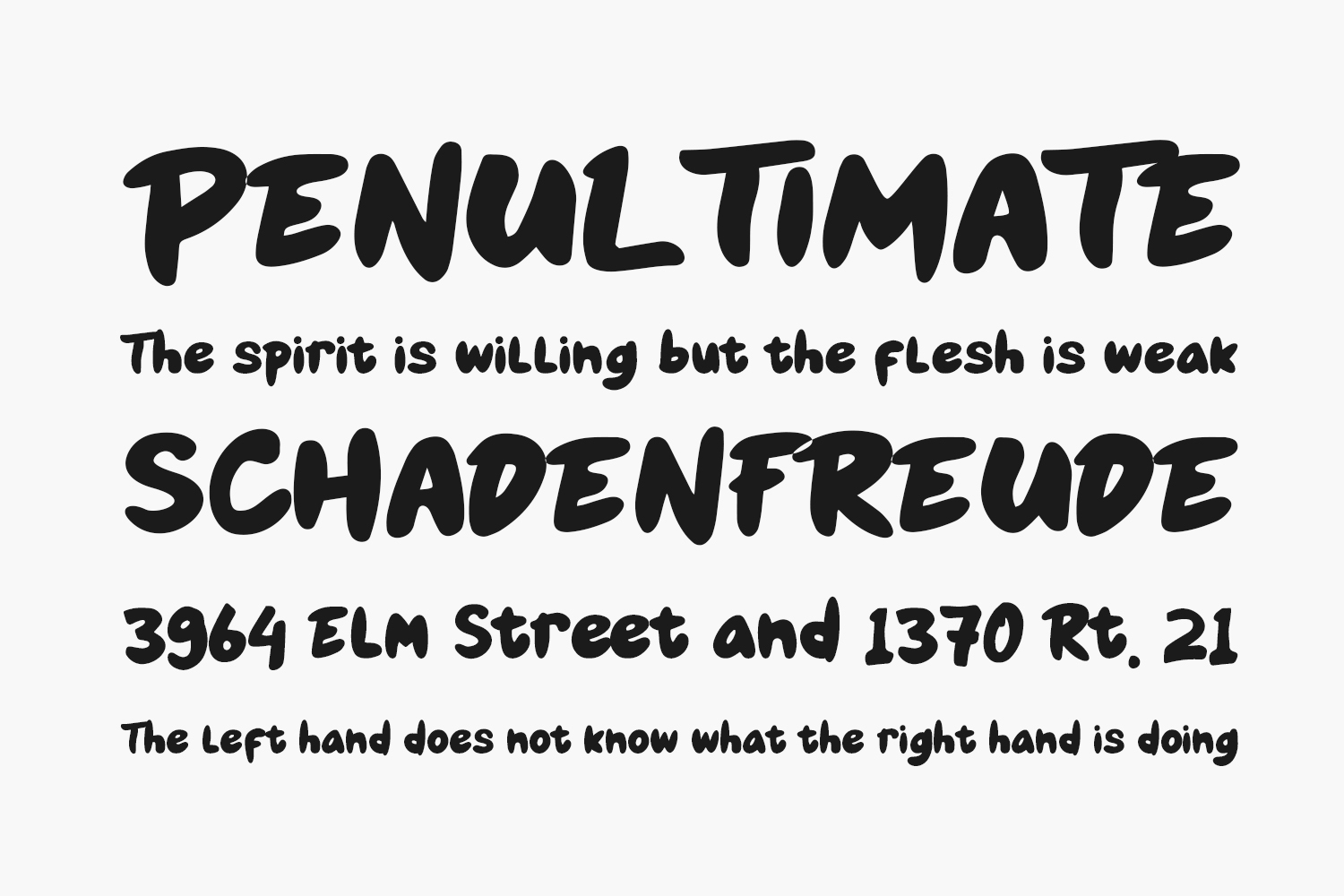
Honey Bear Free Font is a lively and playful cartoon typeface, overflowing with personality and whimsy. Its bold, fanciful letters invite you to let your imagination run wild, as each character dances and bounces off the page. The font exudes a carefree spirit and a sense of joy, perfect for projects that require a touch of fun and quirkiness, such as children’s books, posters, or branding materials. Whether you’re creating a design for a birthday party or simply want to add a pop of playfulness to your daily life, Honey Bear Free Font is the perfect font to bring a smile to everyone’s face.
Designed by MaknaStudio